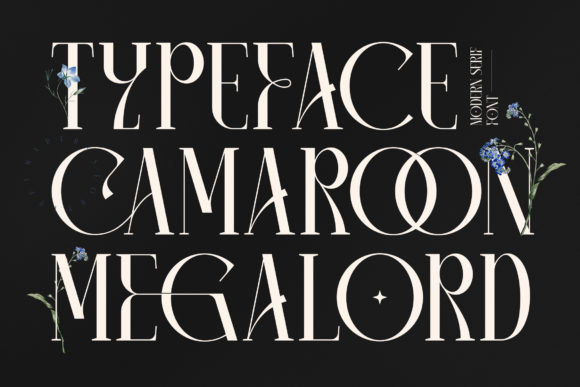
Camaroon Megalord Font: Elevate Your Designs with Elegance and Luxury
In the world of typography, fonts play a crucial role in conveying the tone and personality of a brand, product, or service. Among the numerous fonts available, Camaroon Megalord stands out as a stylish and cool serif font that exudes elegance and luxury. This versatile typeface is perfect for a wide range of design applications, from logos and titles to fashion branding, magazines, and more.
The Camaroon Megalord Font: A Stylish and Cool Serif Typeface
Camaroon Megalord is a carefully crafted serif font that boasts a unique blend of classic and modern elements. Its stylish and cool design makes it an excellent choice for designers seeking to create visually stunning and sophisticated designs. The font’s serif features add a touch of elegance, while its clean lines and precise curves ensure excellent readability.
Perfect for Elegant and Luxurious Designs
Camaroon Megalord is specifically designed to cater to the needs of designers who aim to create elegant and luxurious designs. Its refined features and classic serif structure make it an ideal choice for:
- Logos: Create a lasting impression with a sophisticated logo that showcases your brand’s personality and values.
- Book or Movie Title Design: Add a touch of glamour to your book or movie titles with a font that exudes luxury and sophistication.
- Fashion Brand: Elevate your fashion brand’s visual identity with a font that embodies style, elegance, and refinement.
- Magazine: Create a captivating and luxurious reading experience with a font that commands attention.
- Clothes: Use Camaroon Megalord to create stylish and eye-catching labels, packaging, or advertisements for your clothing brand.
Key Features of Camaroon Megalord Font
Camaroon Megalord offers a range of features that make it an attractive choice for designers:
- Unique Serif Design: The font’s carefully crafted serif features add a touch of elegance and sophistication to any design.
- Excellent Readability: Camaroon Megalord’s clean lines and precise curves ensure that your text is easy to read, even at small sizes.
- Versatility: The font is suitable for a wide range of design applications, from logos and titles to magazines and clothing brands.
- High-Quality: Camaroon Megalord is a high-quality font that is designed to deliver exceptional results in any design project.
Tips for Using Camaroon Megalord Font Effectively
To get the most out of Camaroon Megalord, consider the following tips:
- Pair with Other Fonts: Combine Camaroon Megalord with other fonts to create a unique and visually appealing design.
- Experiment with Colors: Take advantage of the font’s versatility by experimenting with different colors and textures.
- Pay Attention to Kerning: Adjust the kerning to ensure that your text is evenly spaced and visually appealing.
- Use it Sparingly: Use Camaroon Megalord sparingly to create emphasis and add a touch of luxury to your design.
Camaroon Megalord is a stylish and cool serif font that is perfect for designers seeking to create elegant and luxurious designs. Its versatility, readability, and high-quality features make it an excellent choice for a wide range of design applications. Whether you’re looking to create a sophisticated logo, a luxurious magazine, or a stylish fashion brand, Camaroon Megalord is the perfect font for your next design project.